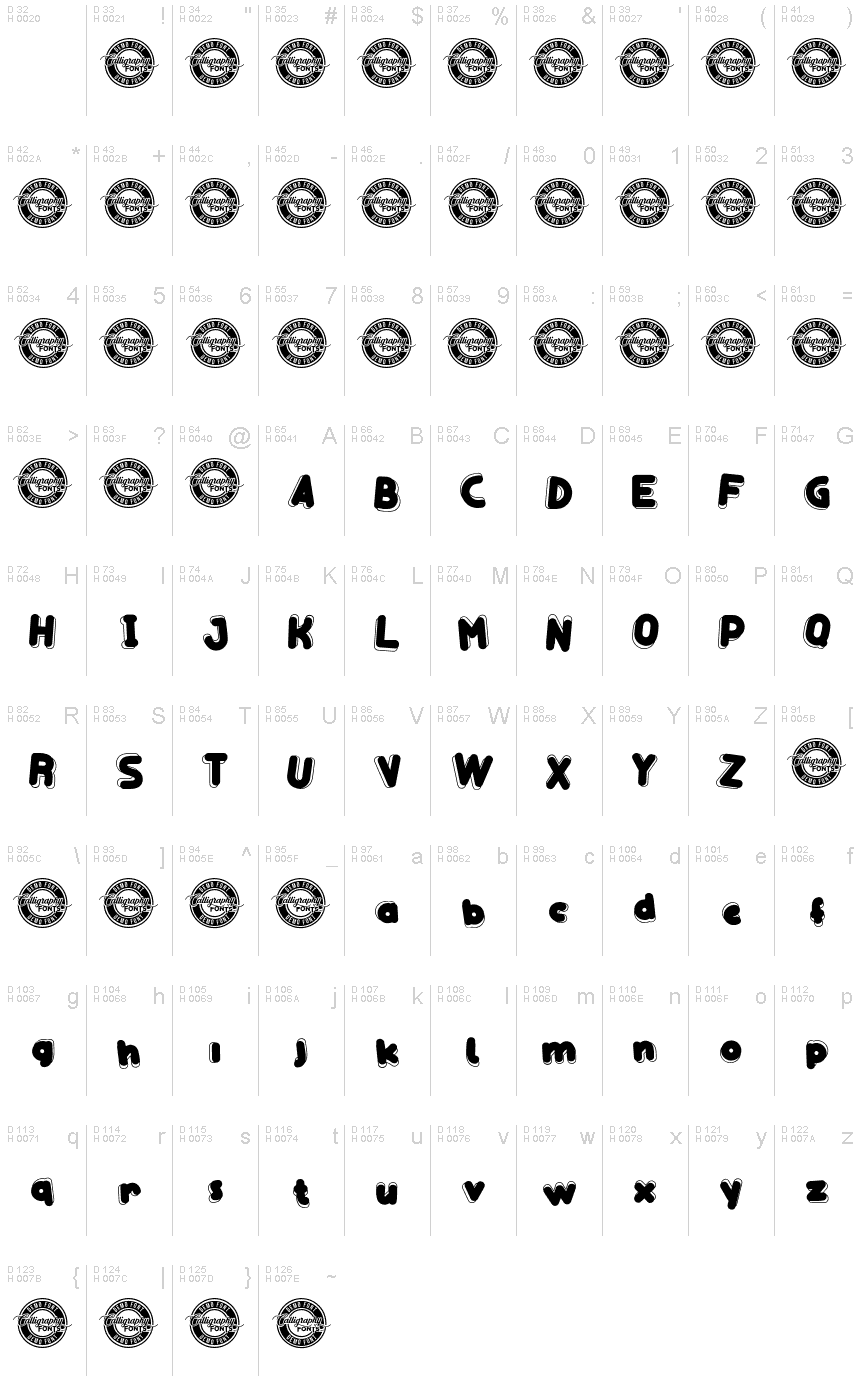
Gummy Candy Demo
Gummy Candy is a bold, cartoon display font designed by Shalsha & Sarah SP. Perfect for adding a unique and playful touch to any project, Gummy Candy is great for logos, titles, posters and more!